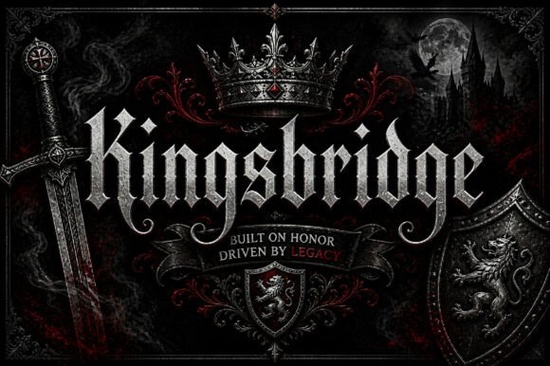
If you're looking for a font that brings a bold, classic, and sophisticated look to your projects, the Kingsbridge Font is a great choice. This refined blackletter display font offers sharp gothic letterforms, dramatic contrast, and elegant swash details, making it perfect for designs that need authority, elegance, and character.
Why Choose Kingsbridge Font for Your Creative Projects?
Kingsbridge Font stands out with its unique blend of traditional blackletter style and modern display appeal. It's versatile enough to be used in a variety of creative contexts, from logos and branding to poster titles and album covers. The font's strong visual presence and timeless medieval-inspired feel make it a standout choice for any project that requires a powerful and memorable impression.
Where Can You Use Kingsbridge Font?
Kingsbridge Font is incredibly versatile and can be applied to a wide range of design projects. Here are some specific use cases:
- Logos and Branding: Create a gothic, authoritative, and elegant brand identity.
- Poster Titles and Album Covers: Add a dramatic and sophisticated touch to your promotional materials.
- Tattoo Artwork: Design intricate and meaningful tattoo designs with a classic gothic flair.
- Fashion Labels: Give your fashion line a premium and distinctive look.
- Event Graphics: Make your event invitations and promotional graphics stand out with a bold and elegant font.
- Merchandise and Packaging: Enhance the visual appeal of your products with a font that exudes luxury and character.
How Does Kingsbridge Font Compare to Other Blackletter Fonts?
While there are many blackletter fonts available, Kingsbridge Font distinguishes itself with its refined and balanced design. Its sharp gothic letterforms and elegant swash details offer a more polished and modern take on the traditional blackletter style. This makes it suitable for both classic and contemporary design projects. If you're interested in exploring other blackletter fonts, you might want to check out the selection at Kingsbridge Font Blackletter Fonts.
What Makes Kingsbridge Font Ideal for Premium Visual Identities?
Kingsbridge Font is ideal for premium visual identities because of its strong and memorable presence. The font's dramatic contrast and elegant details create a sense of luxury and sophistication, making it perfect for high-end brands and exclusive designs. Whether you're designing a logo, a label, or a packaging design, Kingsbridge Font can help you achieve a premium and distinctive look.
How to Incorporate Kingsbridge Font into Your Designs?
Incorporating Kingsbridge Font into your designs is straightforward. Here are some tips to get you started:
- Choose the Right Context: Consider the tone and style of your project. Kingsbridge Font works well for projects that require a bold, classic, and sophisticated look.
- Pair with Complementary Fonts: For a balanced design, pair Kingsbridge Font with simpler, more legible fonts for body text and other elements. This will ensure that your design remains readable and visually appealing.
- Experiment with Colors and Textures: Use colors and textures that complement the gothic style of the font. Dark, rich colors and textured backgrounds can enhance the font's visual impact.
- Test and Refine: Always test your design in different contexts and sizes to ensure that the font looks good and is legible. Make adjustments as needed to achieve the best results.
Where to Find Kingsbridge Font?
You can find Kingsbridge Font and other high-quality blackletter fonts at Kingsbridge Font. Creative Fabrica offers a wide selection of fonts, graphics, and other design resources to help you bring your creative vision to life.
Final Tips for Using Kingsbridge Font
To make the most of Kingsbridge Font in your designs, keep these final tips in mind:
- Understand the Tone: Recognize the bold and sophisticated tone of the font and use it in projects that align with this style.
- Balance with Simplicity: Balance the complexity of Kingsbridge Font with simpler, more legible fonts to maintain readability and visual harmony.
- Experiment Creatively: Don't be afraid to experiment with different color schemes, textures, and design elements to see how they interact with the font.
- Stay Consistent: Use Kingsbridge Font consistently across your design elements to create a cohesive and professional look.